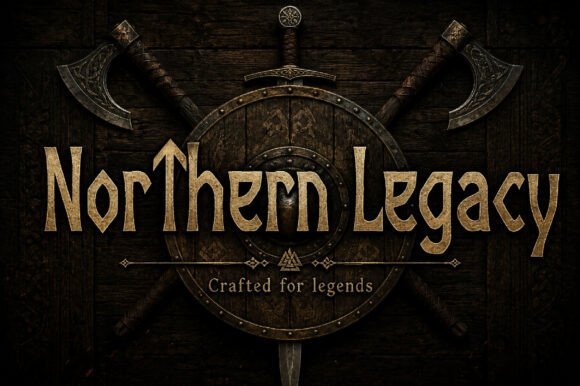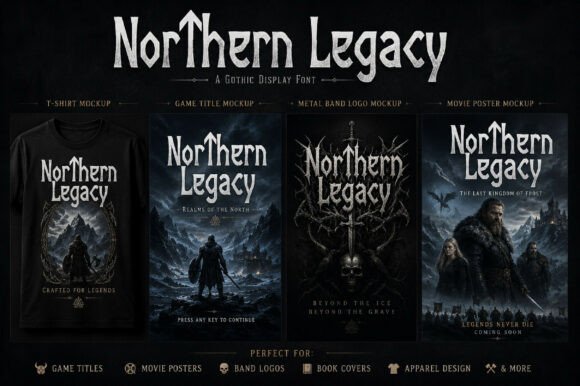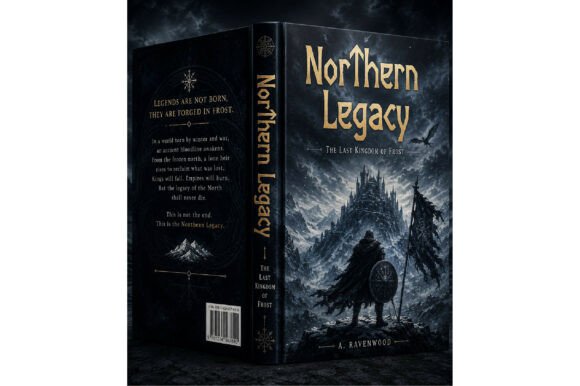
Introduction to Northern Legacy Font
Northern Legacy: A Gothic Display Font Unleash the spirit of the ancient North with Northern Legacy, a gothic display font built for epic storytelling and rugged visual impact.
This typeface features bold, rhythmic letterforms characterized by sharp, rune-inspired angles and a weathered โcarvedโ texture that evokes the frost-bitten landscapes of legend Its massive visual weight and unique โupward-arrowโ terminal on the letter โTโ provide a signature look for fantasy cinema titles, adventure gaming headers, craft beverage branding, and thematic event posters.
Key Features of Northern Legacy Font
Why Choose Northern Legacy Font?